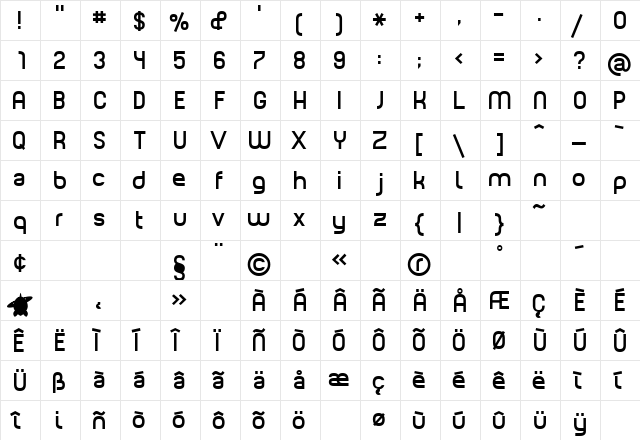
Planet Estyle Regular
Design Context for Planet Estyle Typeface
Planet Estyle offers clean, dependable letterforms without strong stylistic allegiance, making it a practical choice for designers who need flexibility.
Pro Tip: Use Planet Estyle in both headline and body roles to test its range before committing to a single application.